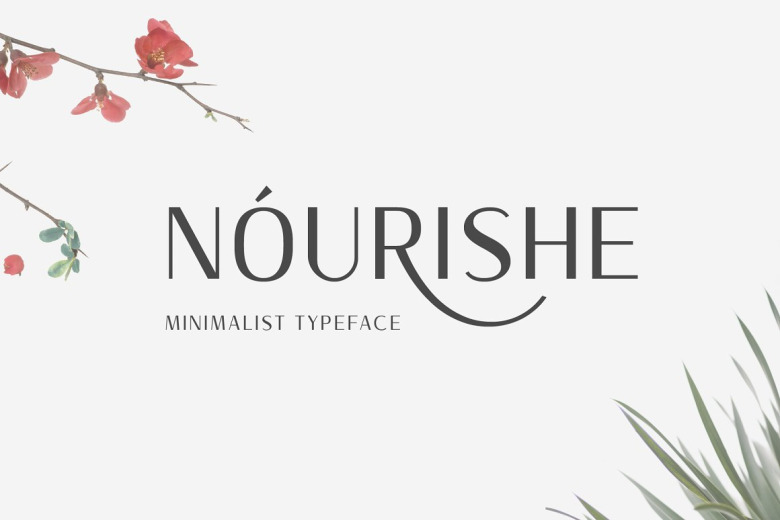
Nourishe Font
Let me introduce you our brand new Nourishe minimalist font, made with duo-line combine as organic as possible. Nourishe is a sans serif font who suitable for branding and editorial design. nowadays we know sans serif become a part of new trending of a graphic design in typography.
Nourishe Fonts will come as your good choice to make your design more elegant with minimalist strokes and feminine curves. This font family has open-type feature, like some alternates to gives you an option. Also complete with some swashes you can apply to get more beautiful looks.
Nourishe Sans Serif Font